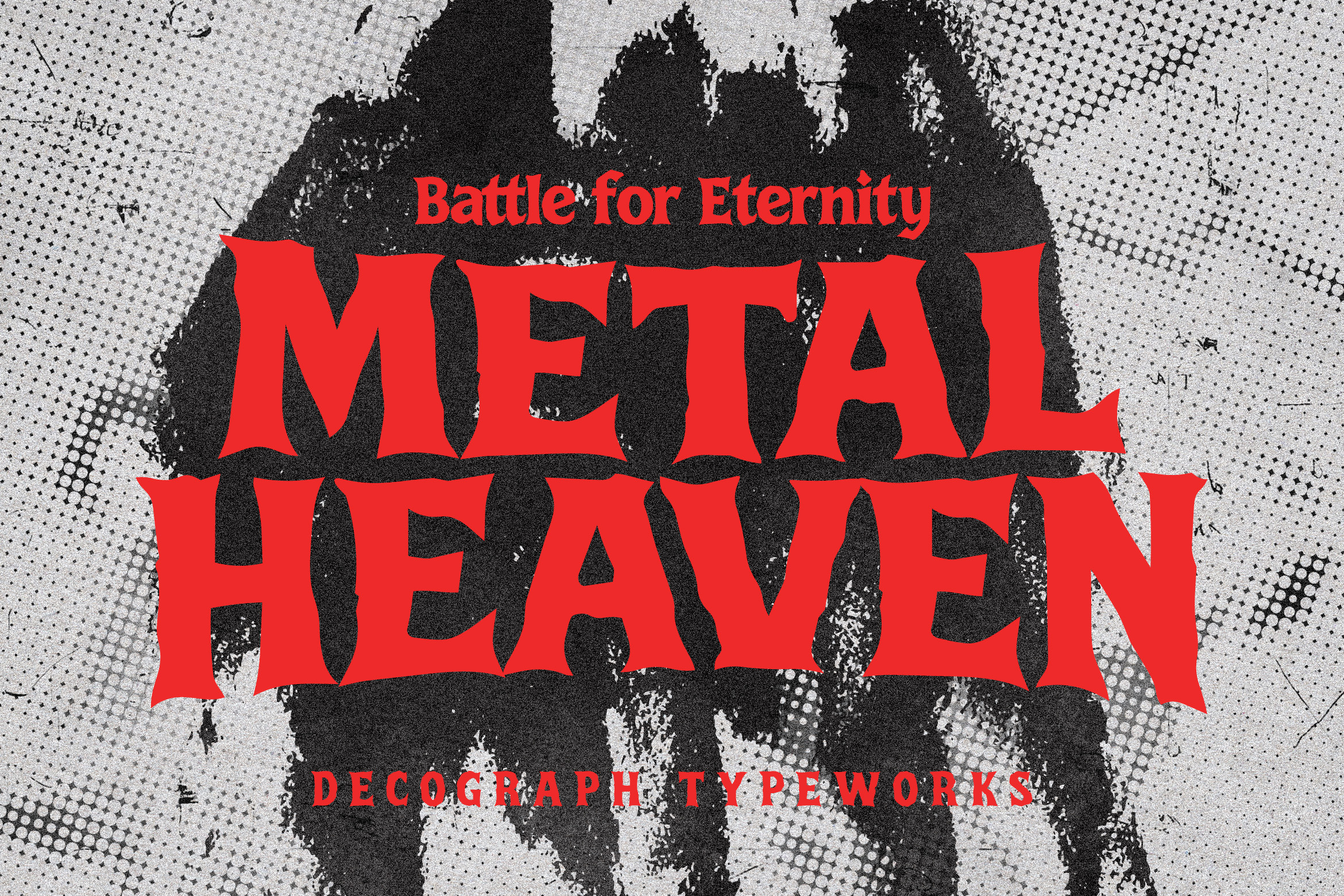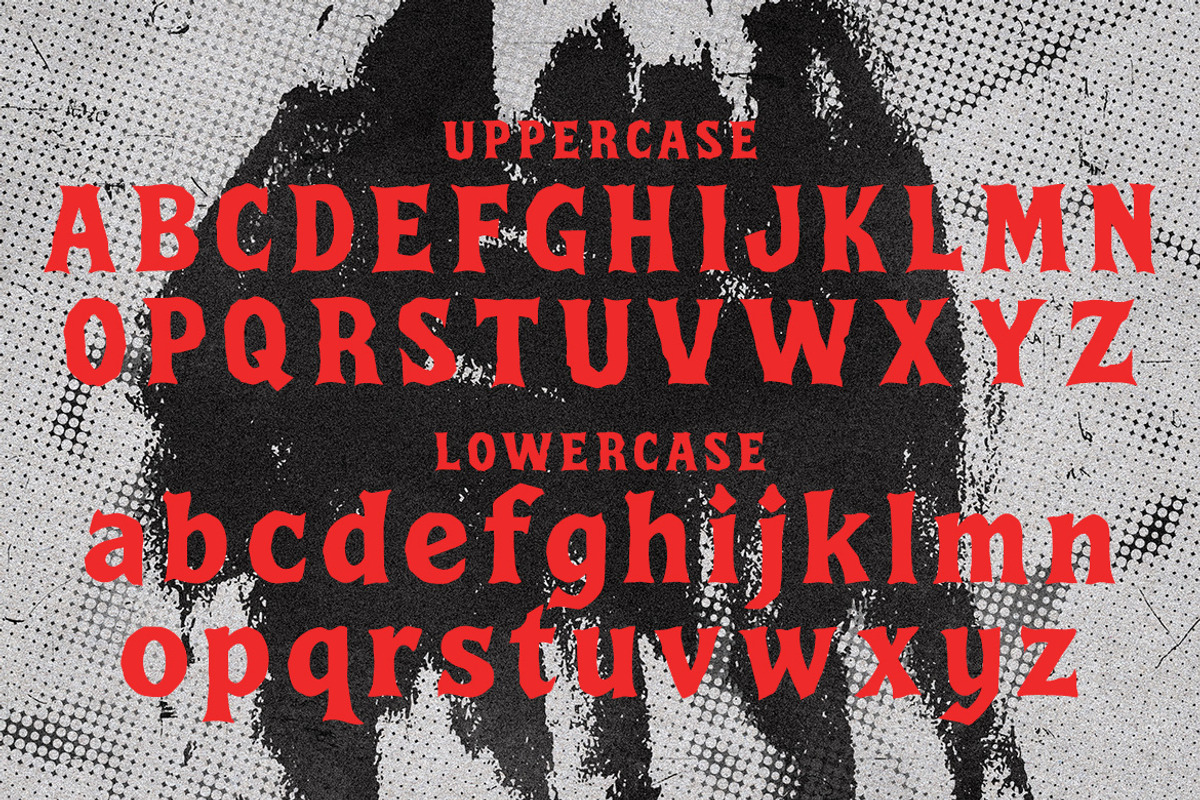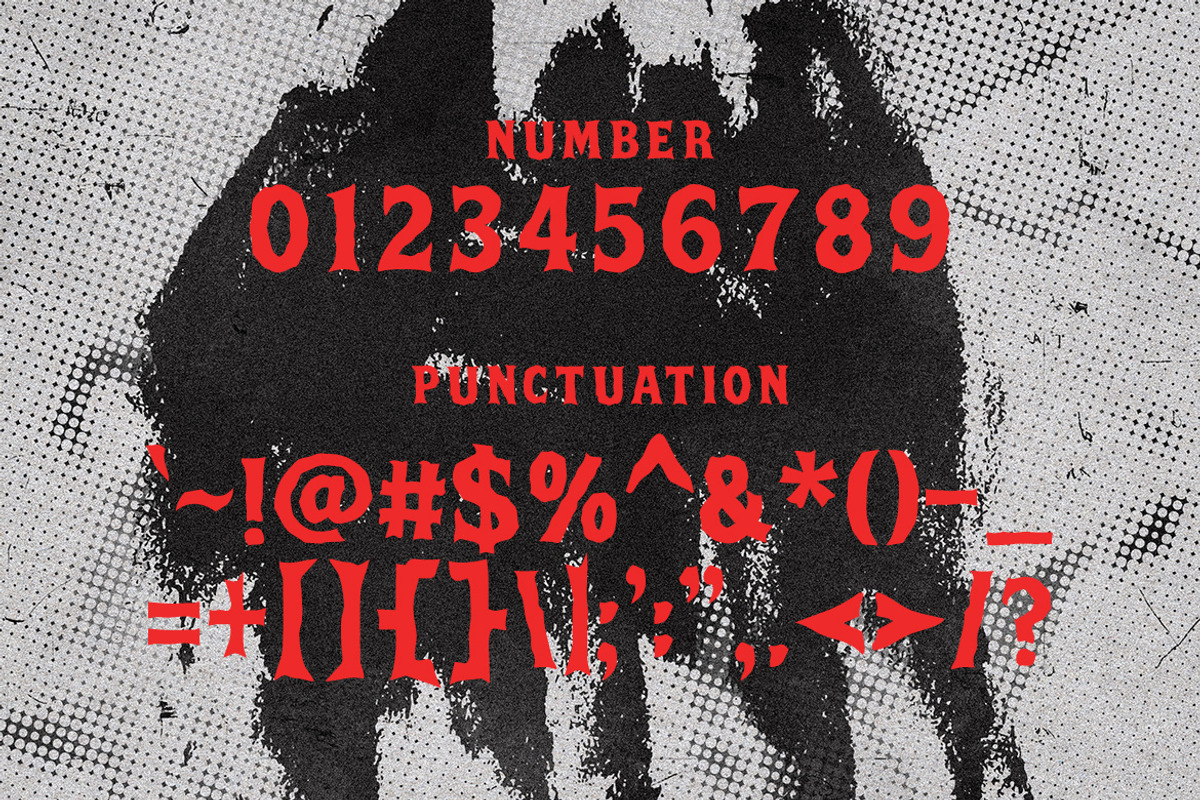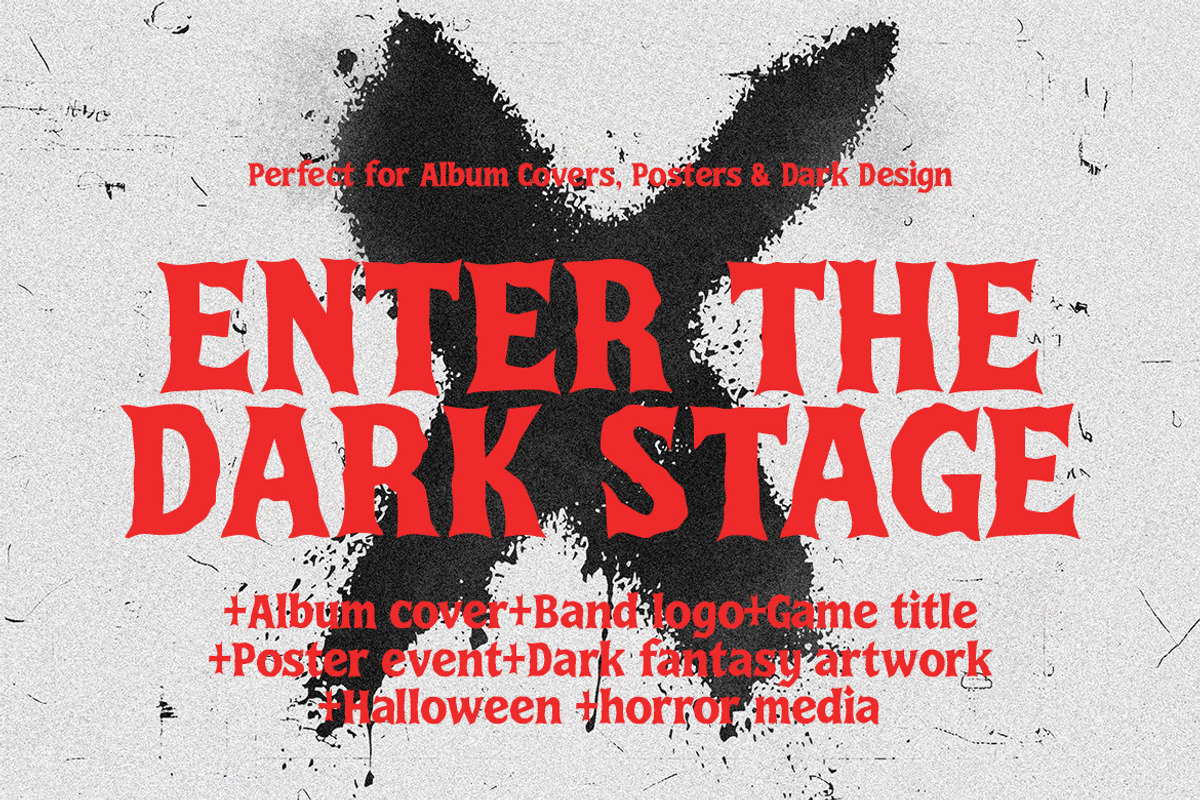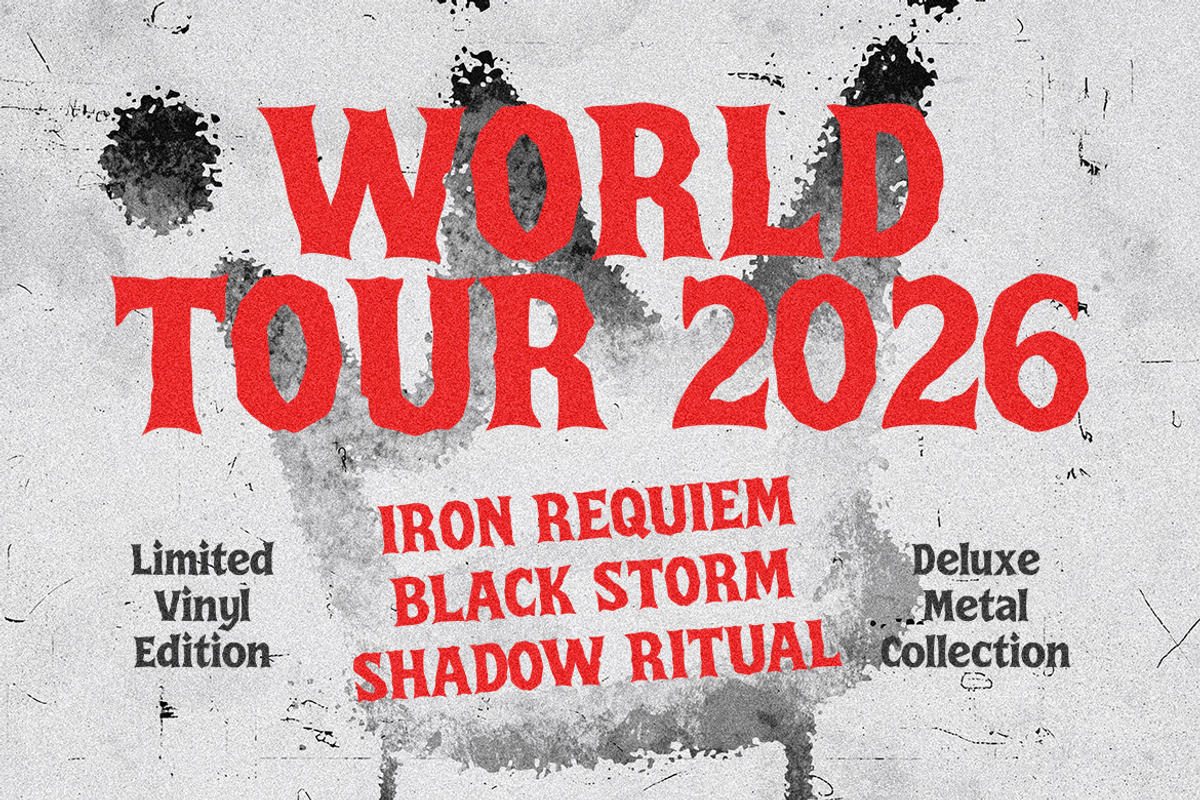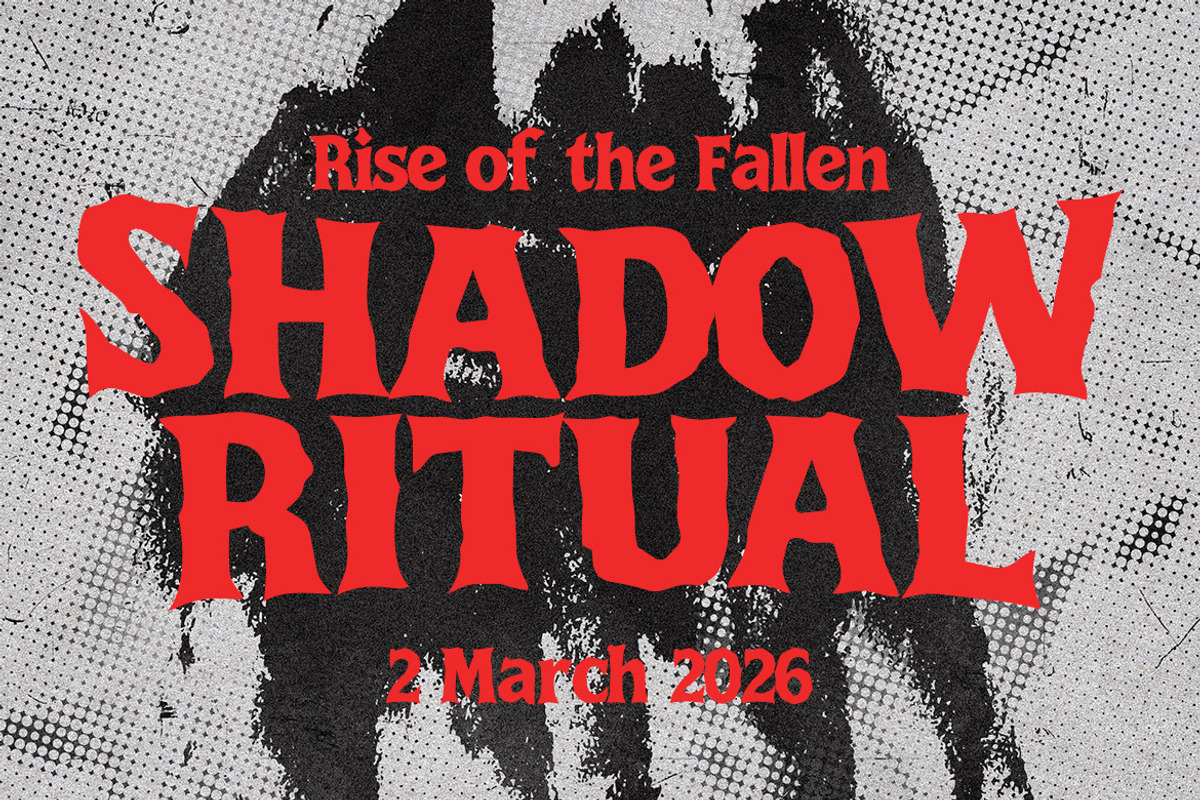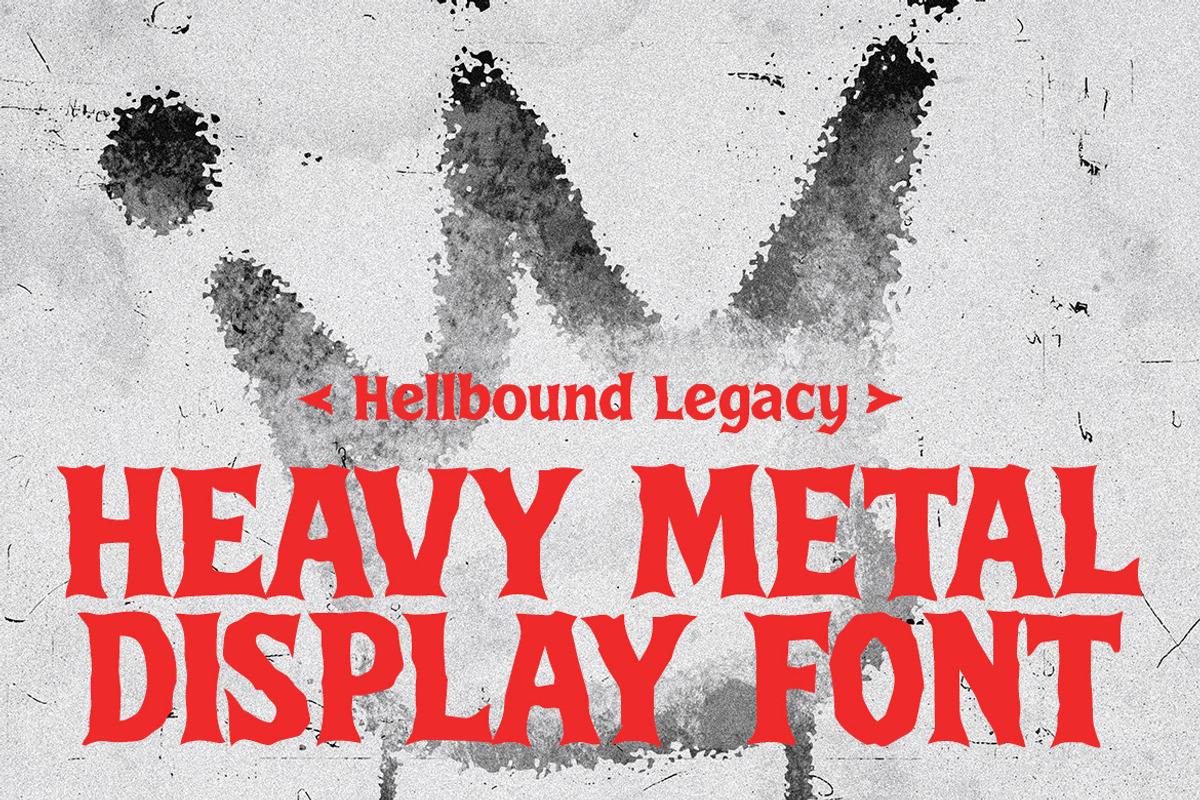
Metal Heaven – Heavy Metal Font
Metal Heaven is a bold, aggressive blackletter display font forged with raw energy and rebellious attitude, inspired by classic heavy metal aesthetics and underground rock culture. Its sharp edges, gothic curves, and powerful letterforms create a striking visual impact that instantly commands attention—perfect for album covers, band logos, posters, merchandise, streetwear branding, and edgy editorial designs. Designed to evoke intensity and chaos while maintaining readability, Metal Heaven blends vintage blackletter tradition with a modern metal twist, making it an essential typeface for creators who want to amplify their designs with loud, unapologetic character.